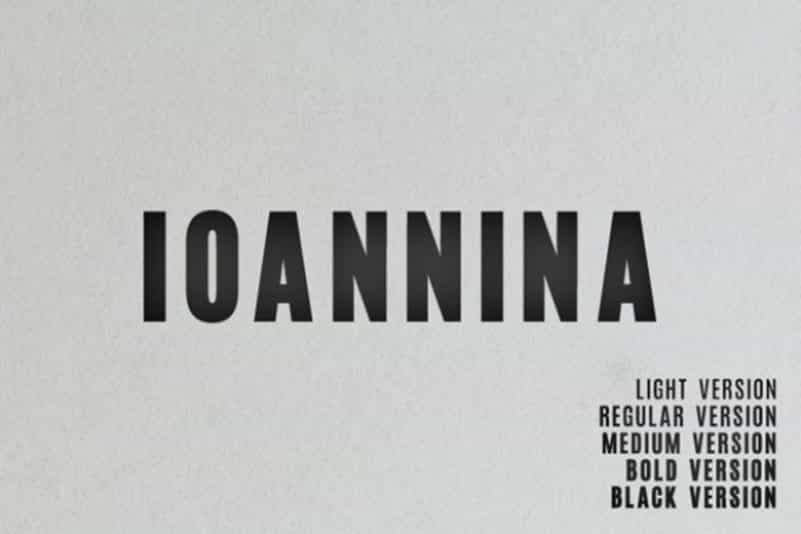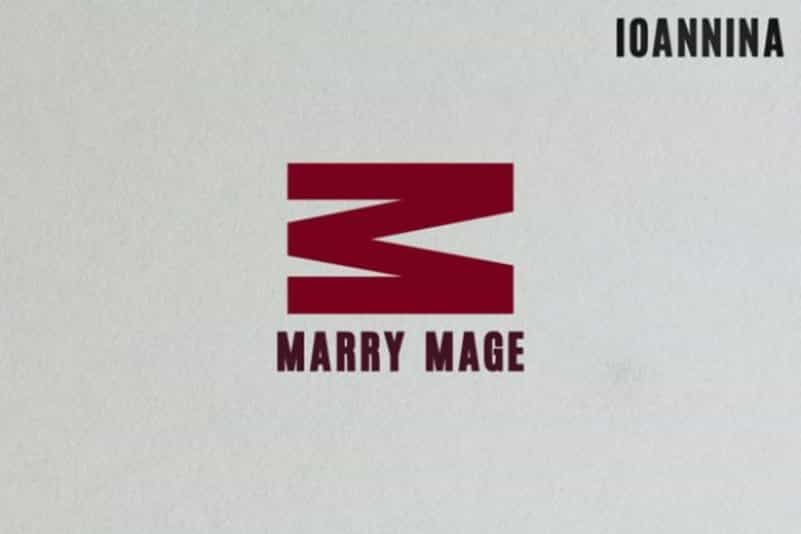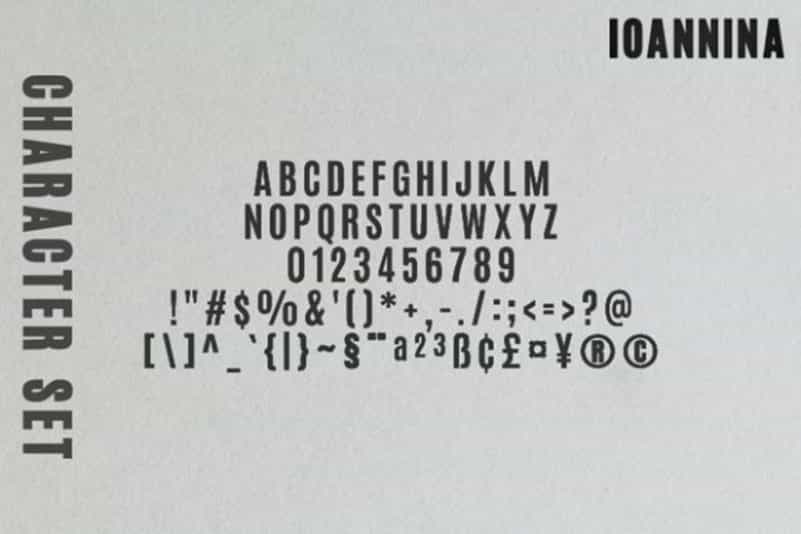
Discover Ioannina Sans Font Family, part of the Sans Serif collection—a versatile and unique font perfect for adding a personal touch to your projects. Download it for free and enjoy crafting designs with style, from invitations to social media posts. This font is available exclusively for personal use, giving you the freedom to create without limits. Unlock your creativity with Ioannina Sans Font Family today!
Ioannina is the tough sans serif font. I’ve been trying to find in my design work for a long time clean lines, modern sans serifs and just a little bit of vintage. It is really good in logo work as well as web headings and printed materials, besides this pack comes with 4 weights(Light, Regular, Medium, Bold and Black Version)!